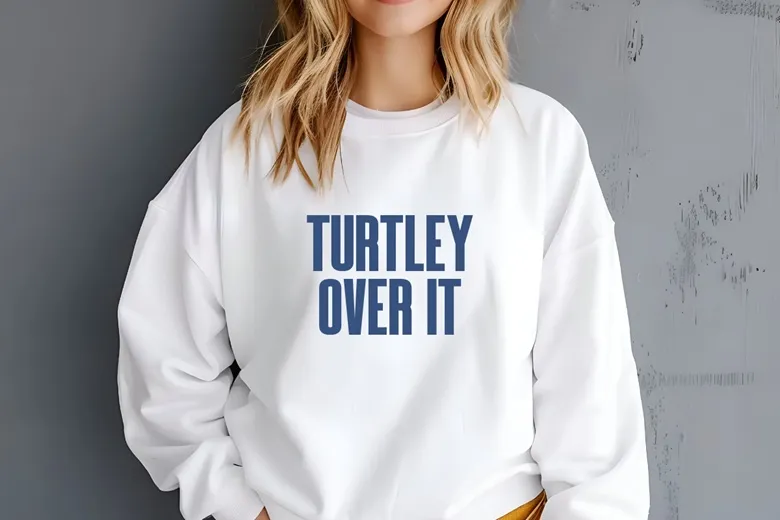
Thinking Font Free Download
Thinking Font is a clean and minimalist sans serif typeface featuring simple letterforms, balanced proportions, and a calm intellectual style. Its thoughtful modern inspired appearance gives every design a smart, clear, and approachable look.
This font is a great choice for educational materials, study guides, book covers, presentation slides, mental health brands, and creative projects that need a reflective and gentle visual identity.